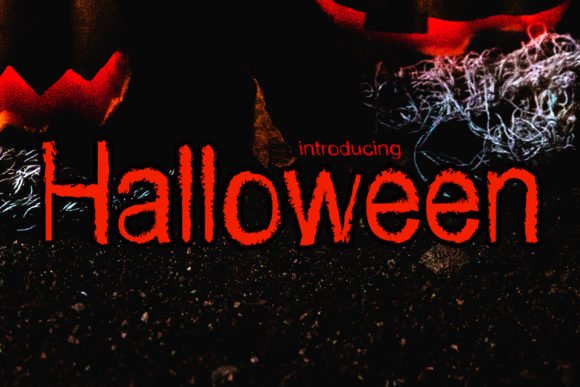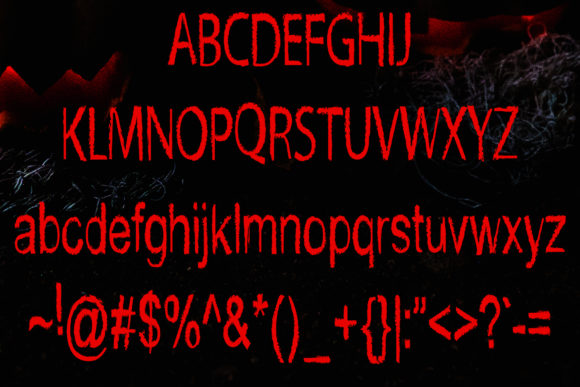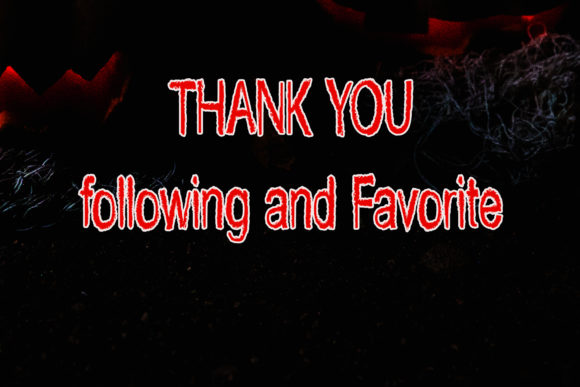
The Perfect Font for Your Spooky Season Crafts
It’s that time of the year again – the leaves are changing, the pumpkins are carving, and the creative juices are flowing. As a designer, I’m sure you’ve found yourself in the midst of a late-night crafting session, searching for the perfect font to bring your spooky season ideas to life. And that’s where I found myself last year, scrolling through font options until I stumbled upon the Halloween Font.
This quirky and unique display font is a game-changer for any October crafting project. Its bold, playful letters are incredibly versatile and can be used to create anything from spooky invitations to creepy crafts. And the best part? It’s incredibly easy to use, making it a valuable addition to any designer’s toolkit.
Halloween Font Key Features
- Font Family: Halloween Font is a sans-serif font, with a unique, spooky twist.
- Character Set: Supports a wide range of characters, including uppercase and lowercase letters, numbers, and special characters.
- Unique Characteristics: Features a bold, eerie design, with a subtle texture that evokes a sense of spookiness and mystery.
Halloween Font Review
Overall, I found the Halloween Font to be a fun and festive addition to any design project. ✨ Here are some of the things that work well:
- Unique and creative letterforms that evoke a spooky, playful atmosphere.
- Perfect for Halloween-themed designs, such as invitations, posters, and social media graphics.
- Works well in bold, all-caps settings to add emphasis and energy to your design.
- ⚠️ The font may be too playful or cartoonish for more serious or sophisticated designs.
- ⚠️ Some of the letterforms may be difficult to read in smaller sizes or at a distance.
- ⚠️ The font may not be suitable for body text or large blocks of text, as it can be overwhelming.
In conclusion, the Halloween Font is a great choice for designers looking to add a touch of spooky fun to their projects. While it may not be suitable for every design, it’s a great option for Halloween-themed designs and can add a lot of energy and personality to your work.
For best results, use the Halloween font for titles, headings, and emphasis. It’s ideal for invitations, posters, and social media graphics. To get the most out of it, pair the font with bold colors and spooky graphics. Common use cases include Halloween-themed parties, haunted houses, and spooky decorations.